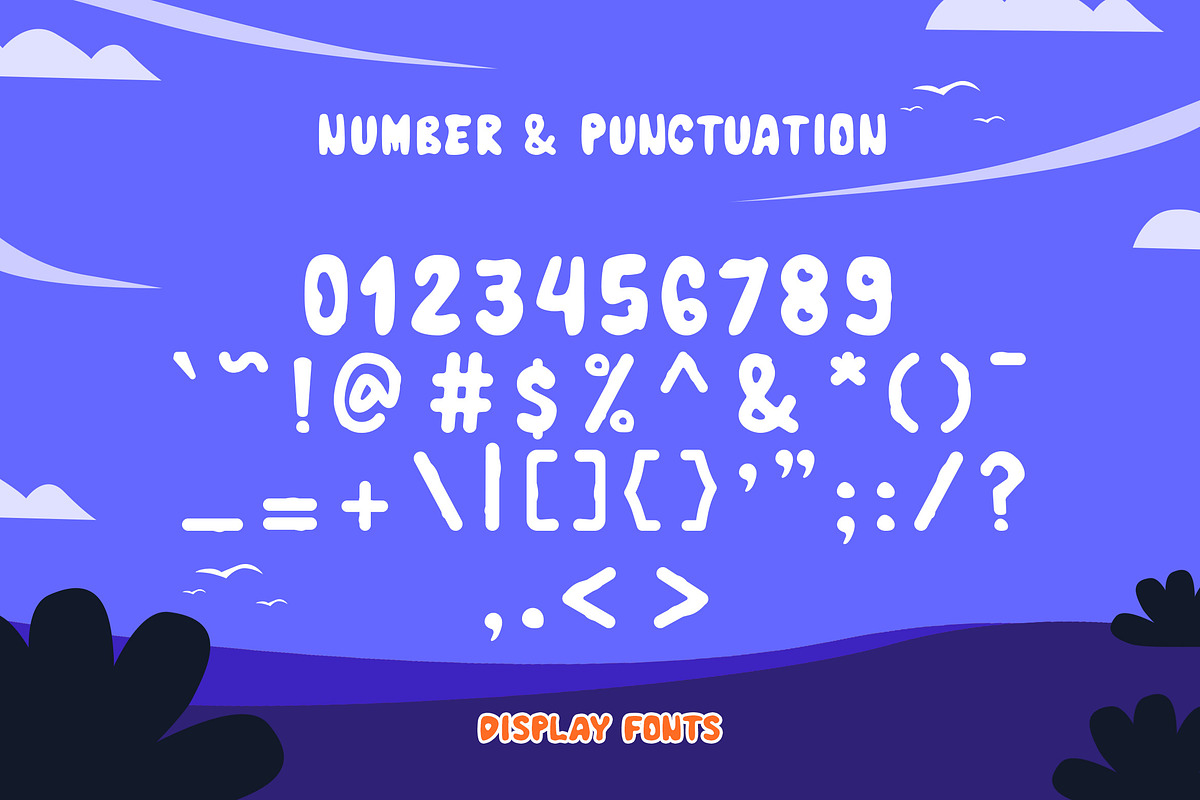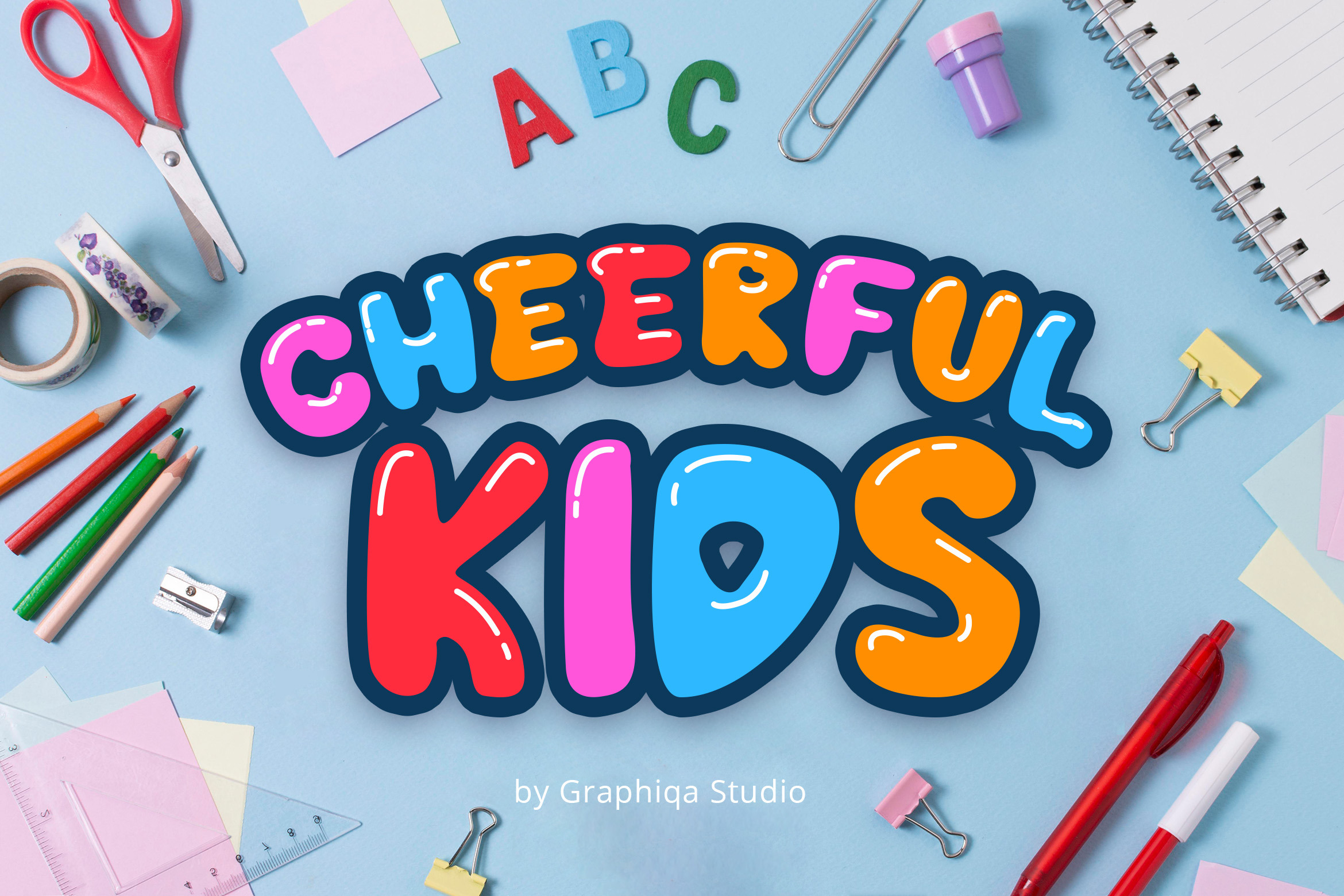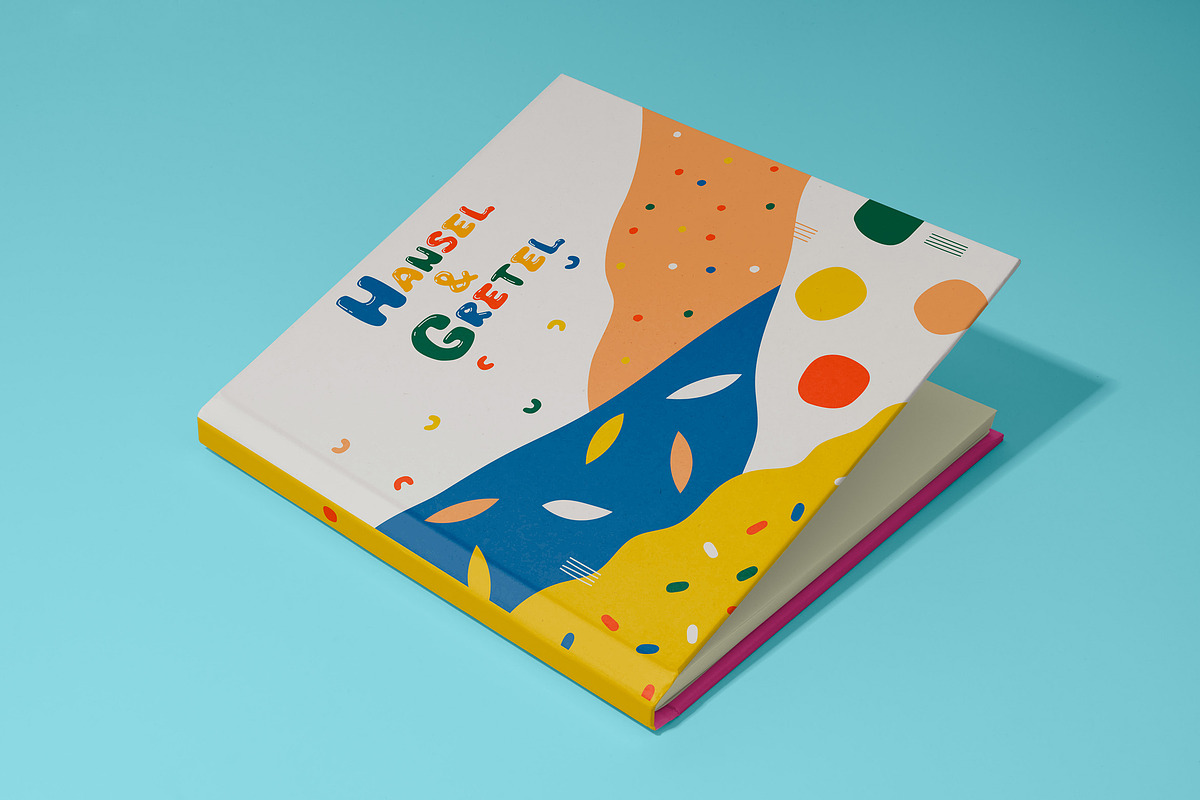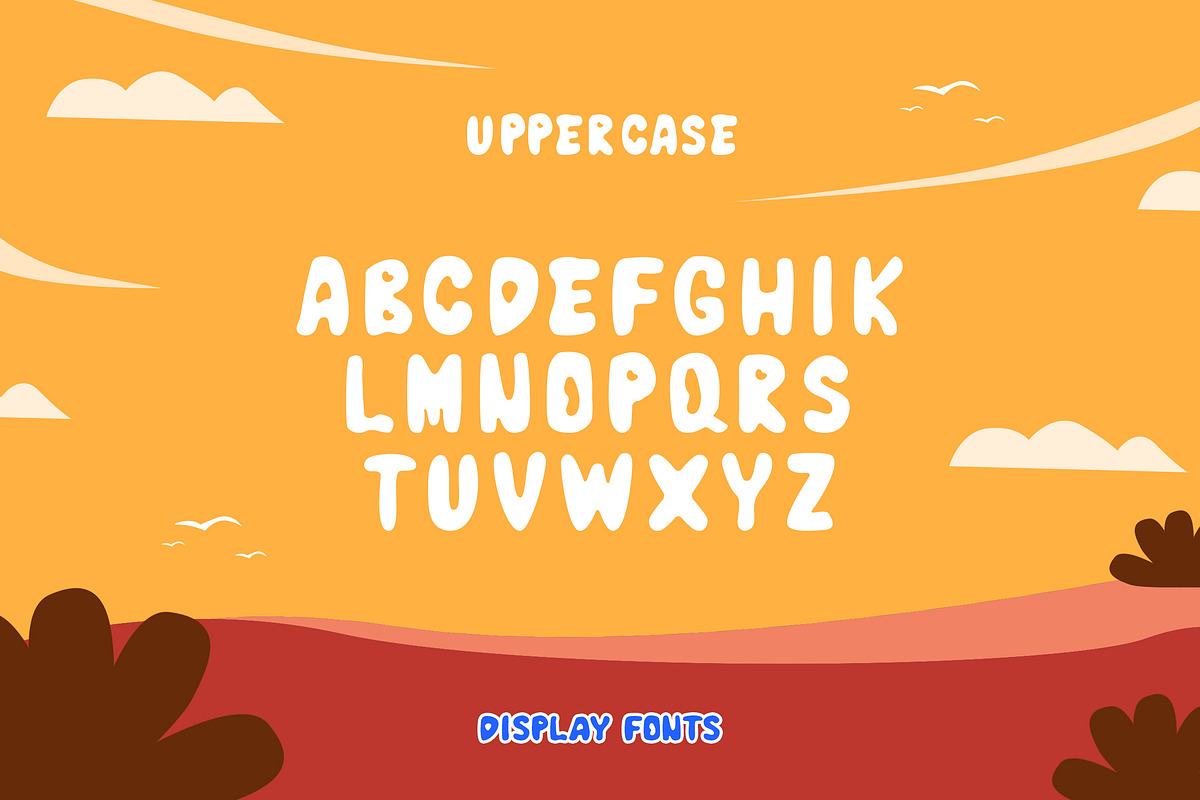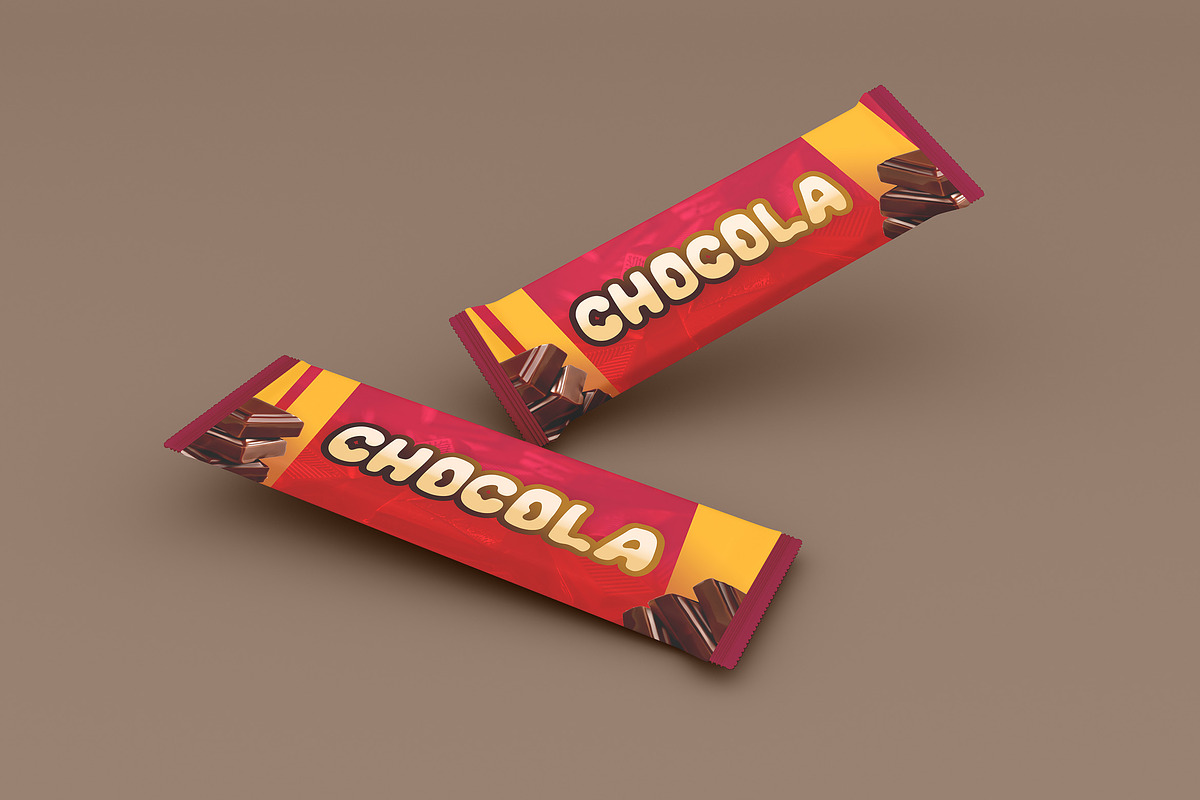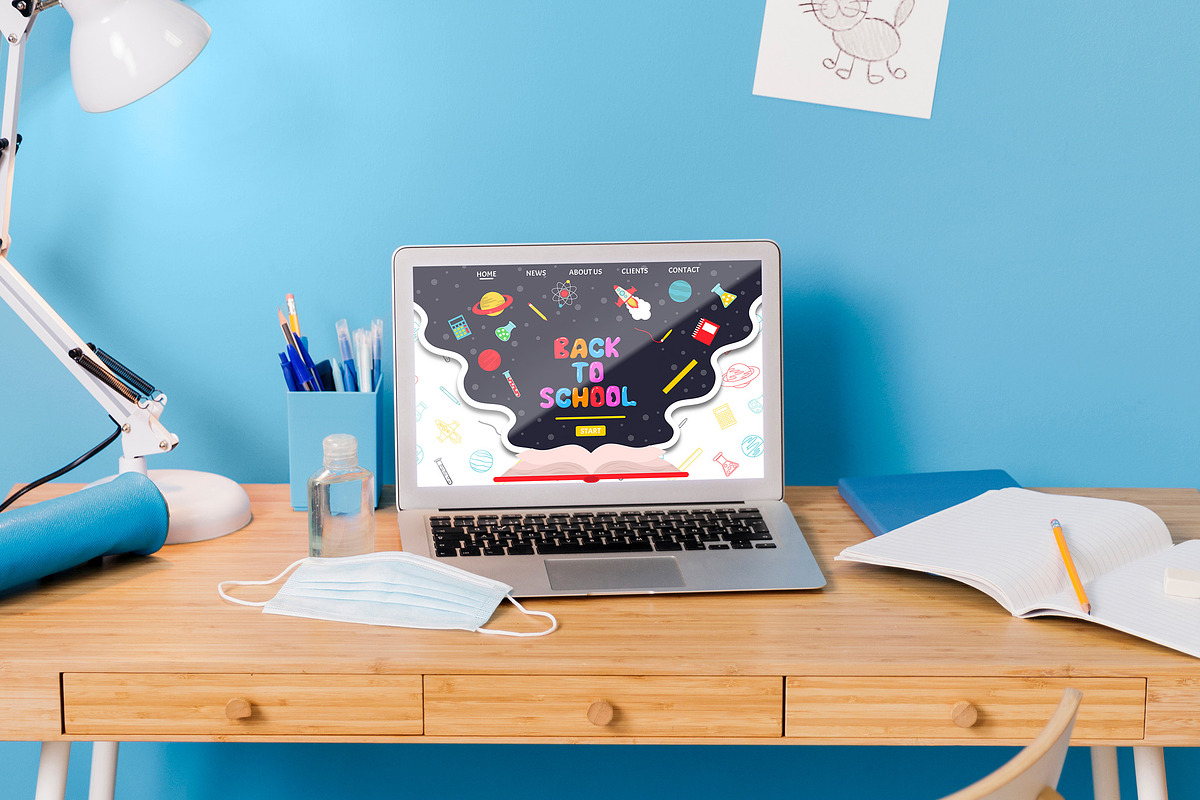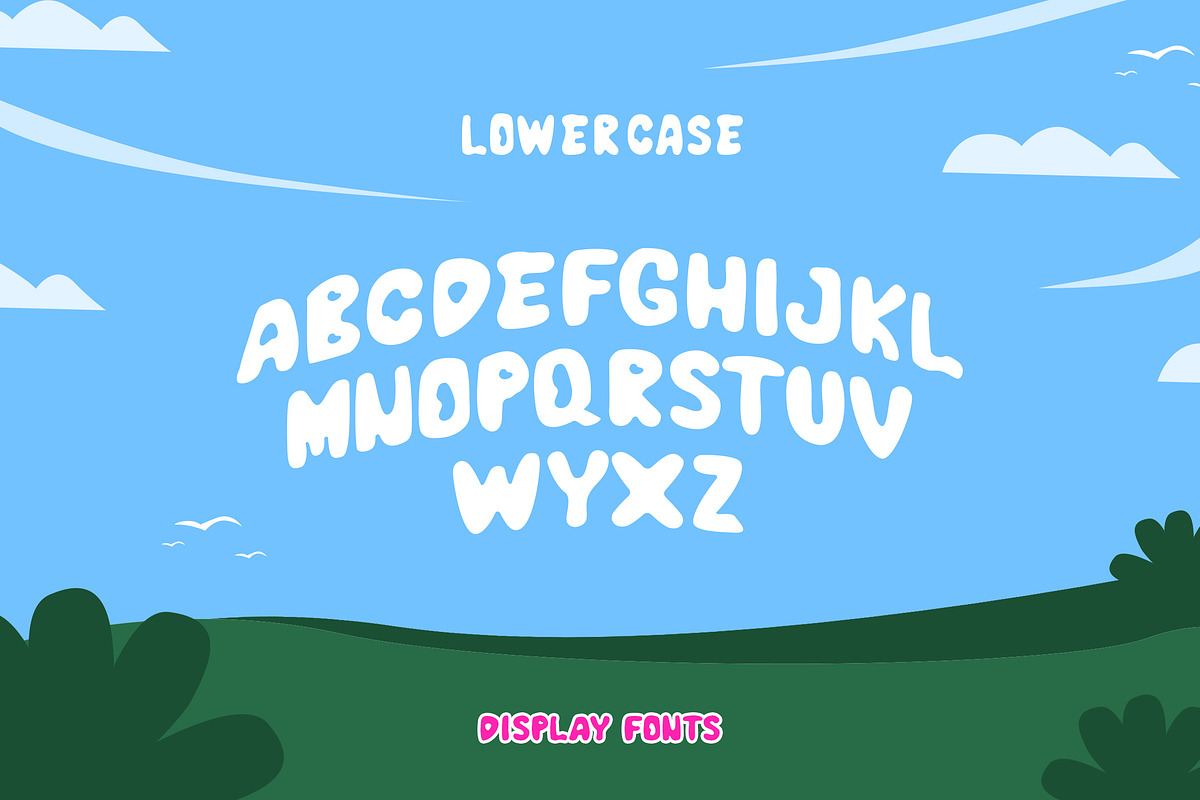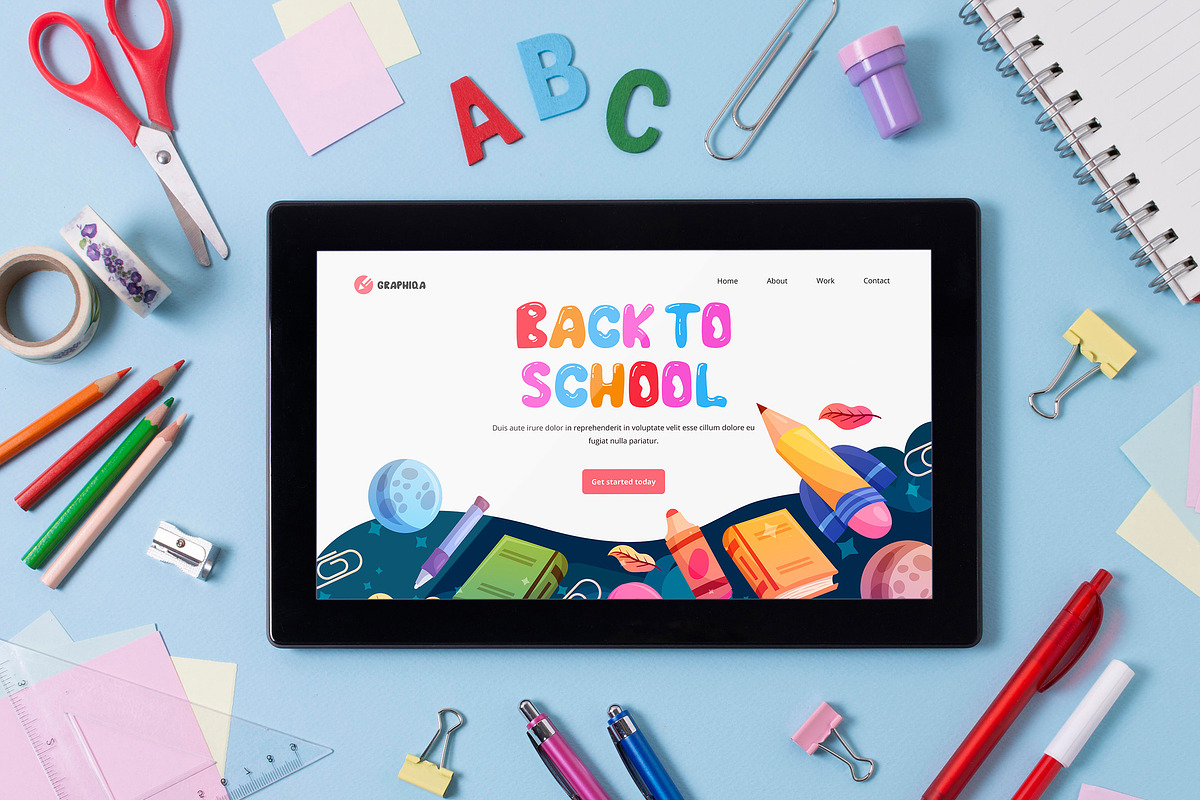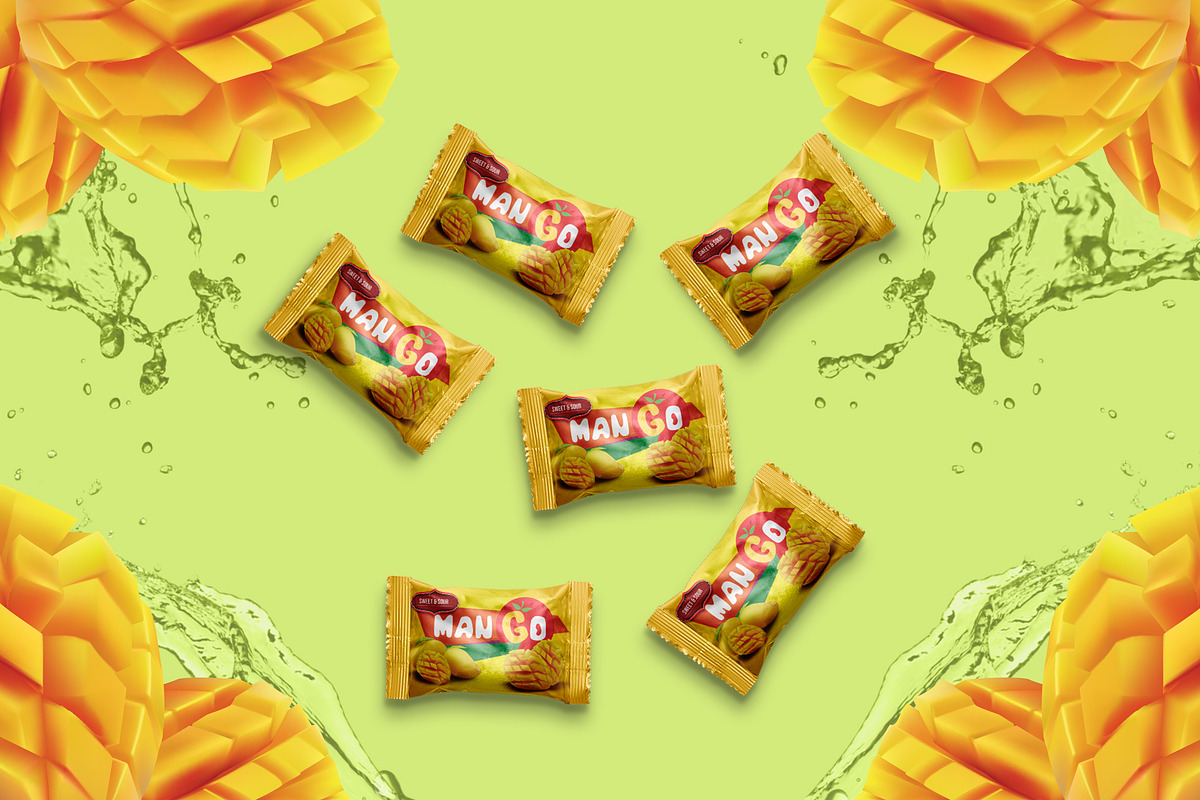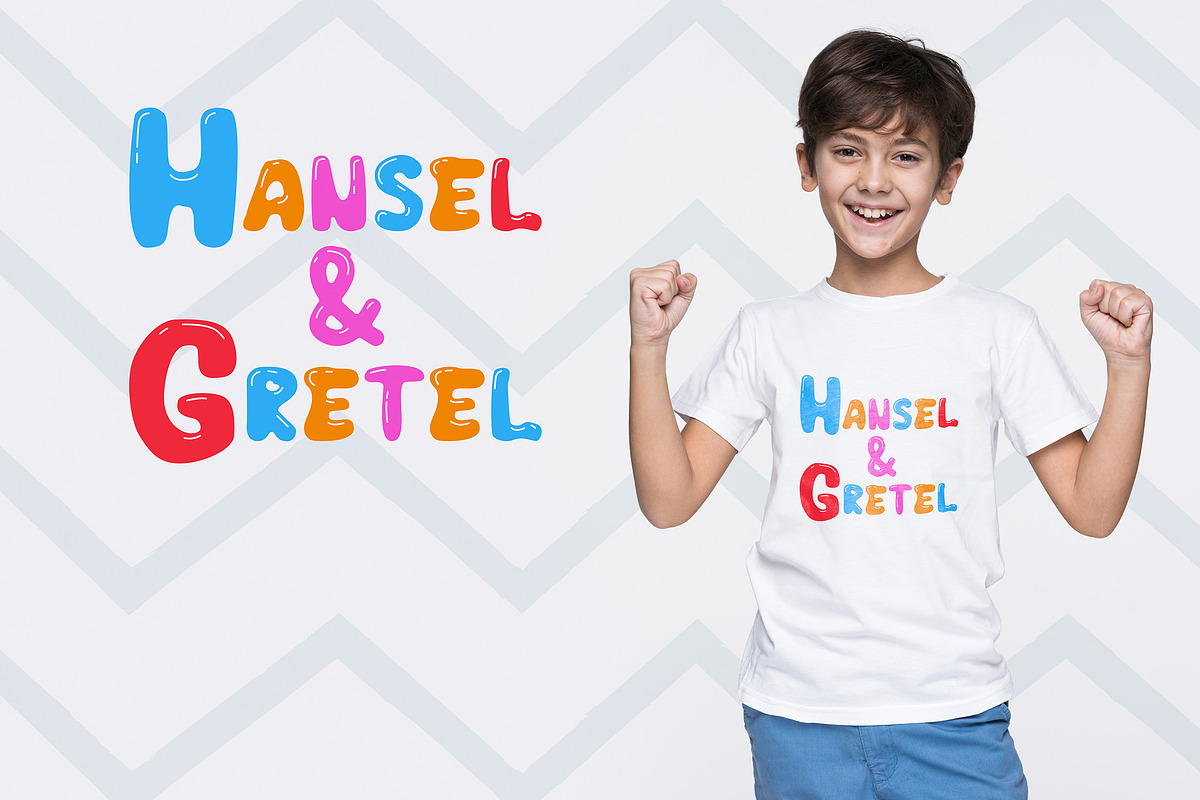
Cheerful Kids - Display Font
Introducing Cheerful Kids, is a Unique Display Font has many purpose and suitable for kids activity, web header, back to school, logotype, book cover, apparel, branding, packaging, advertising, event, happy birthday event and much more